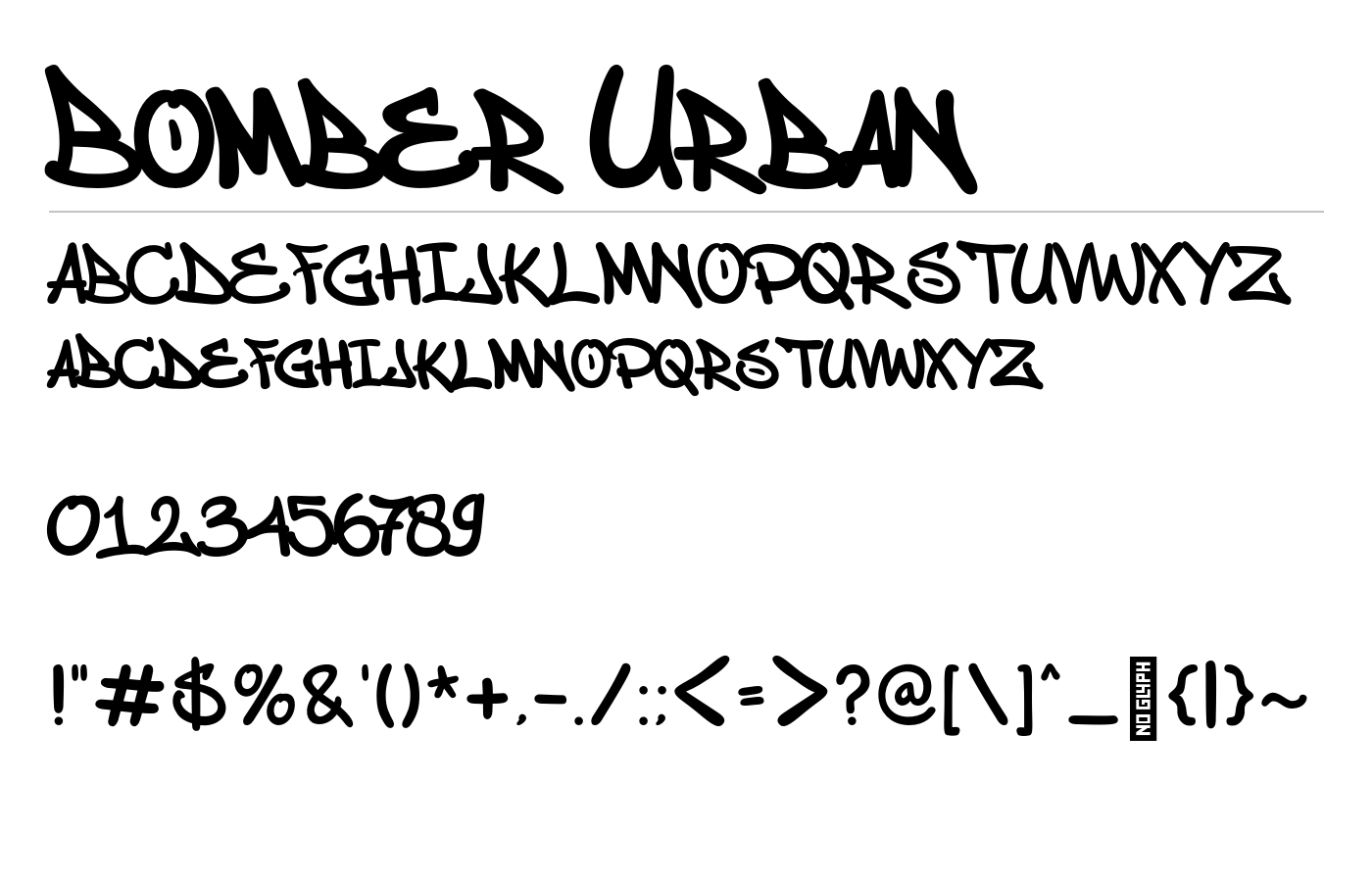
Bomber Urban is a bold, playful handwritten font that captures the raw energy of street art and graffiti. Its irregular, lively letterforms and casual brushstroke style give it an urban, edgy vibe, making it perfect for creative projects that want to express individuality and youthful spirit. This font works great for posters, logos, and branding that aim to stand out with a rebellious, informal look.
Bomber Urban Font
About Bomber Urban Font